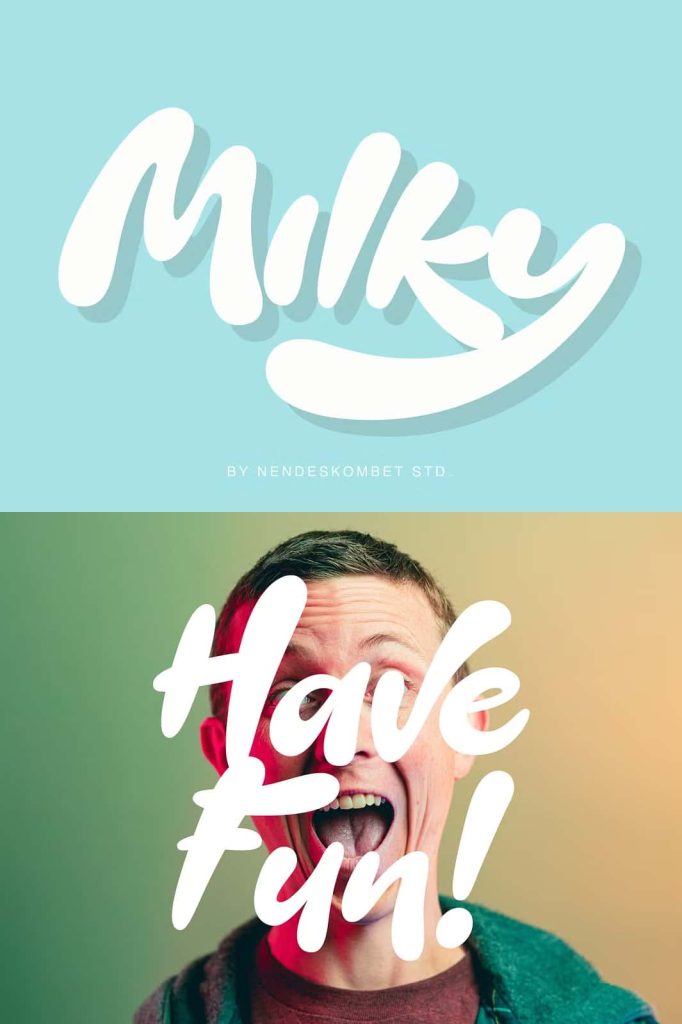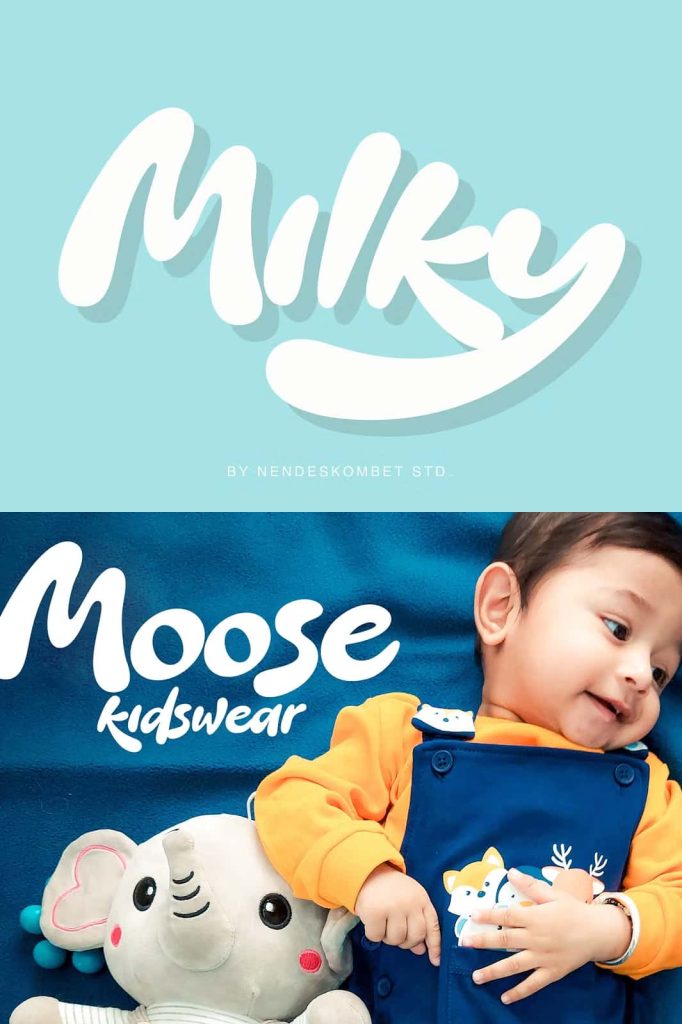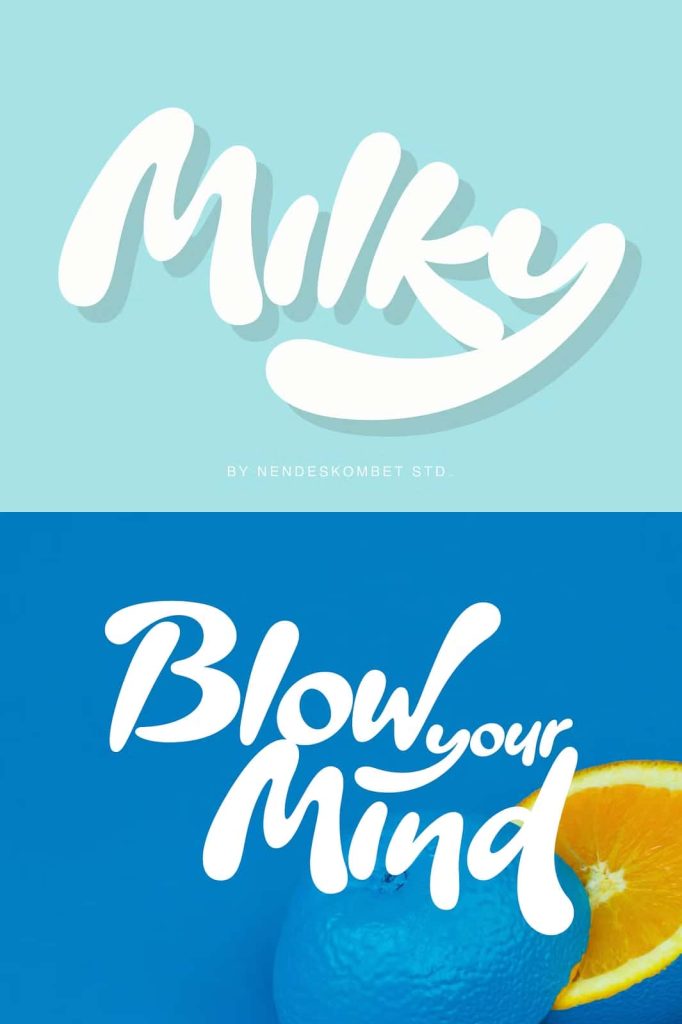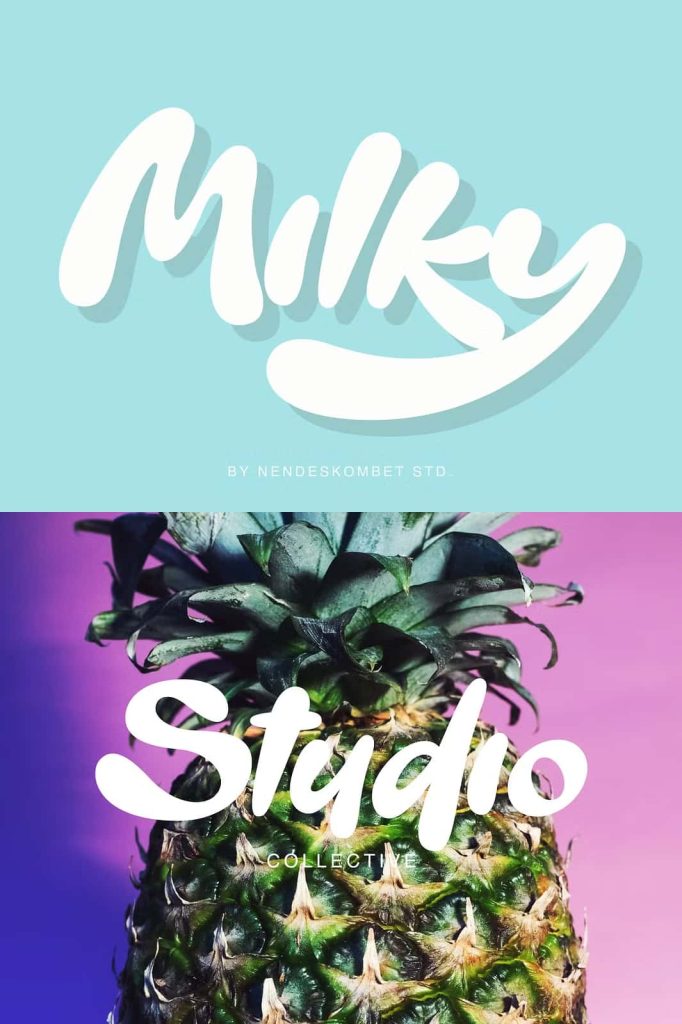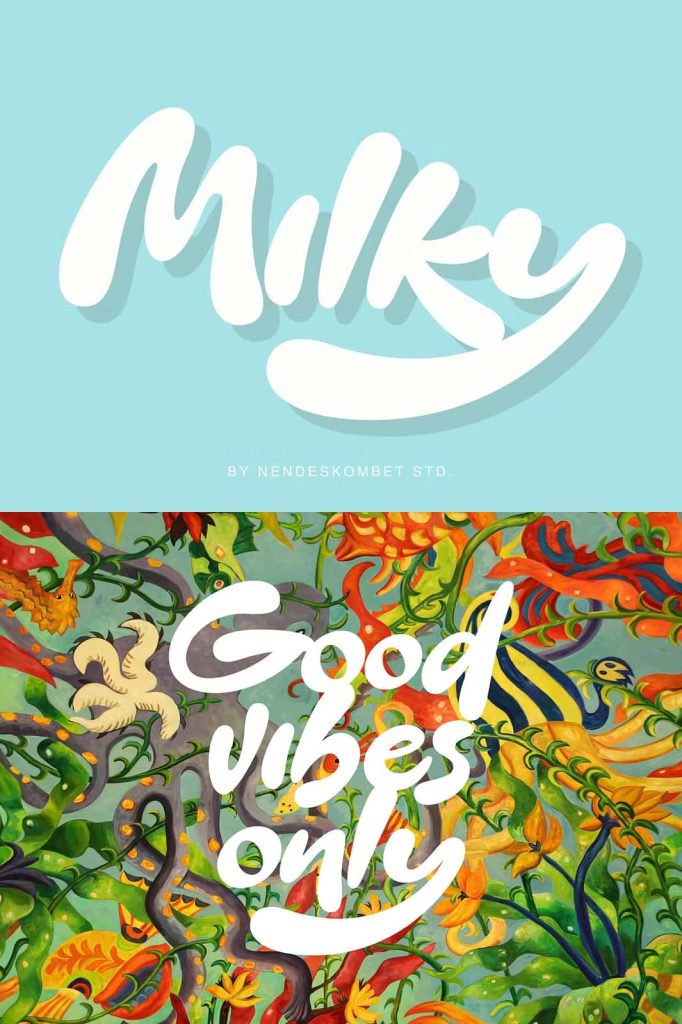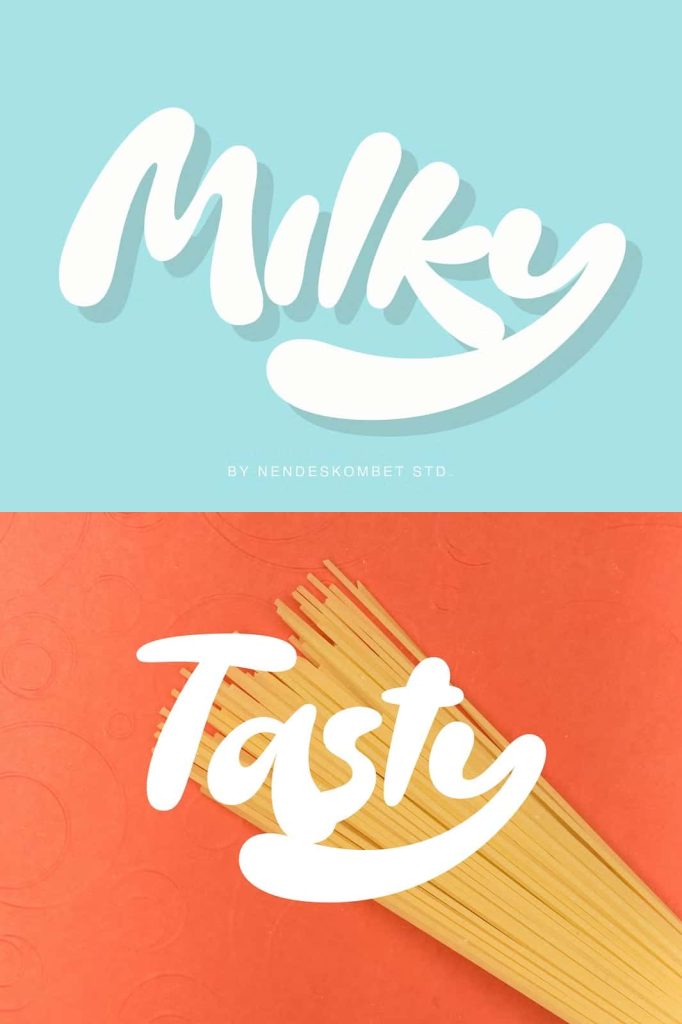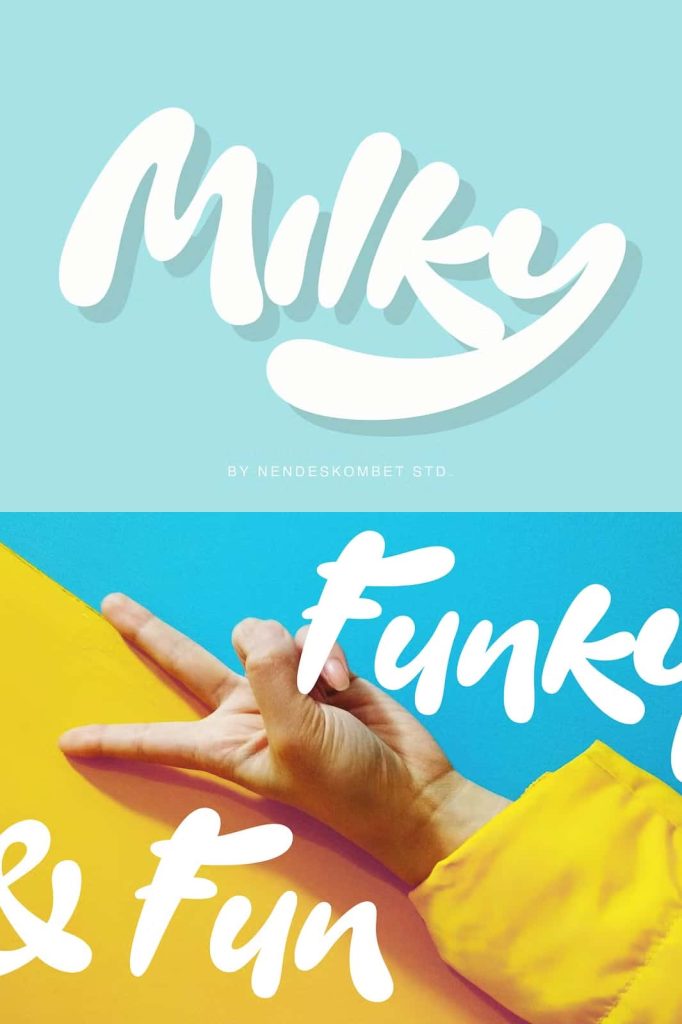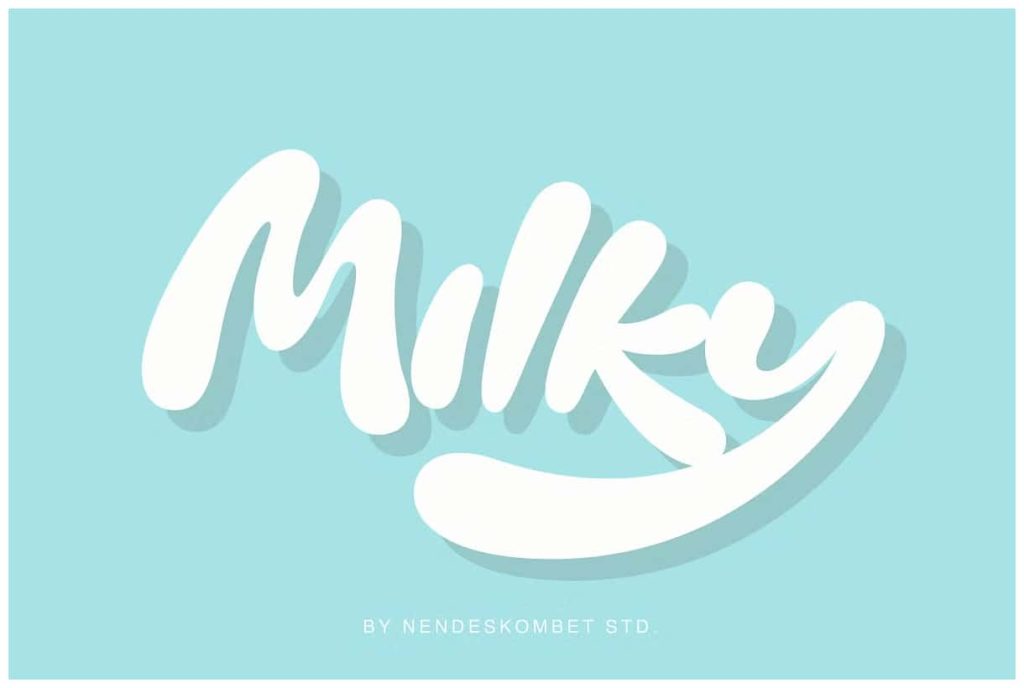
Milky – a Bright and Bubbly FontleastedMarch 19, 2025Fonts Milky, a bright and bubbly set of font that will enlighten your day! With its round and curvy shape Download